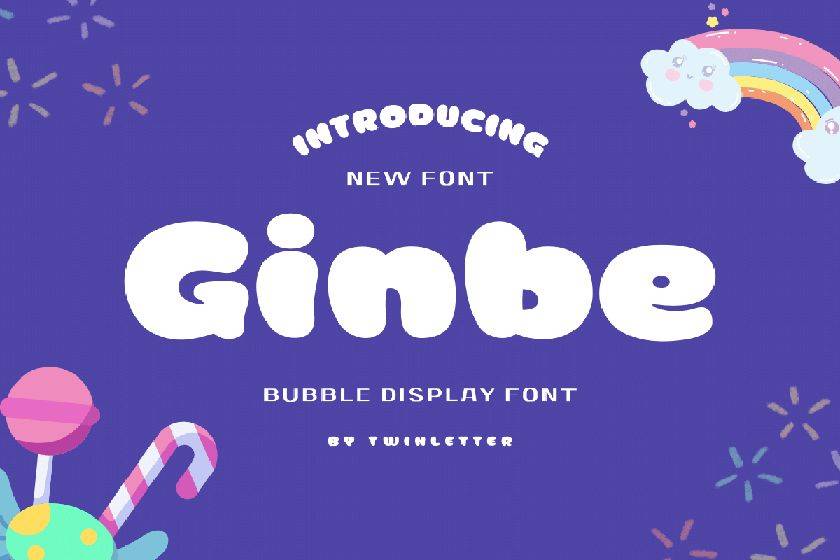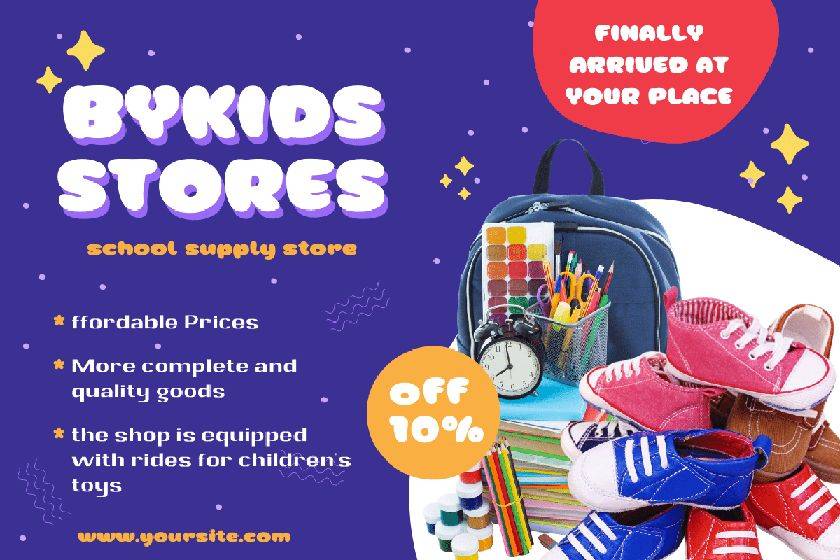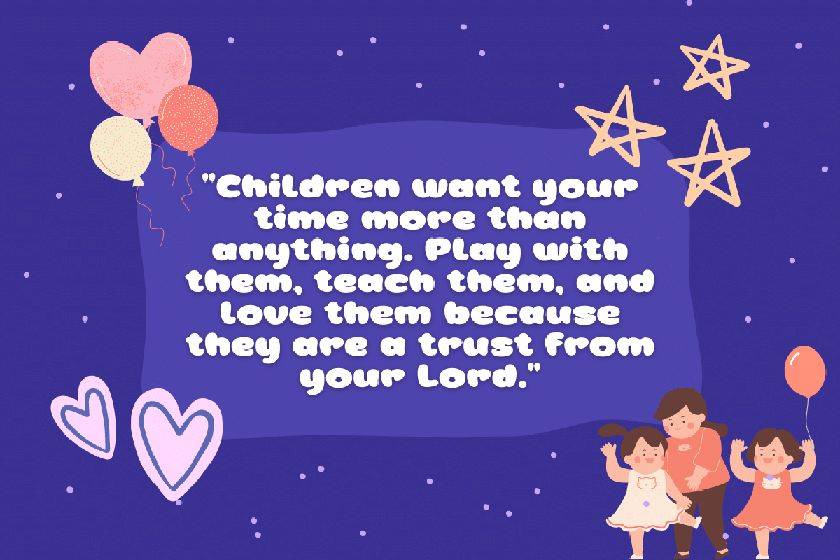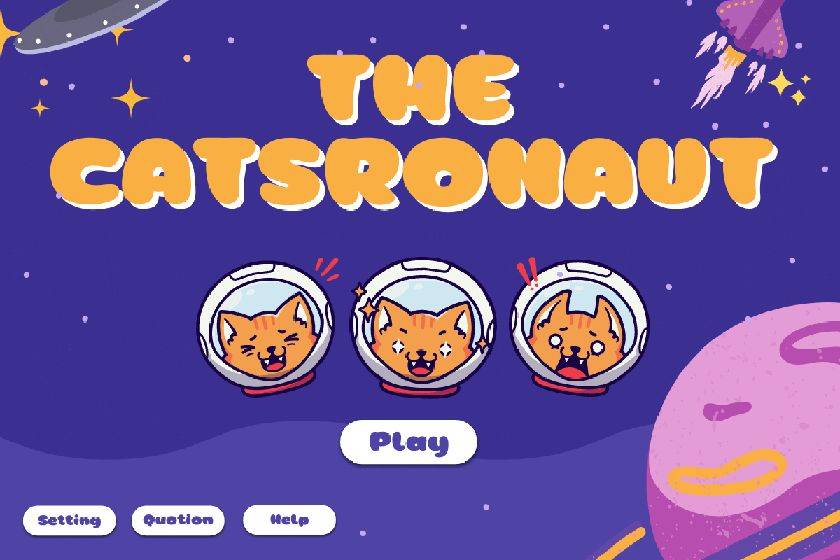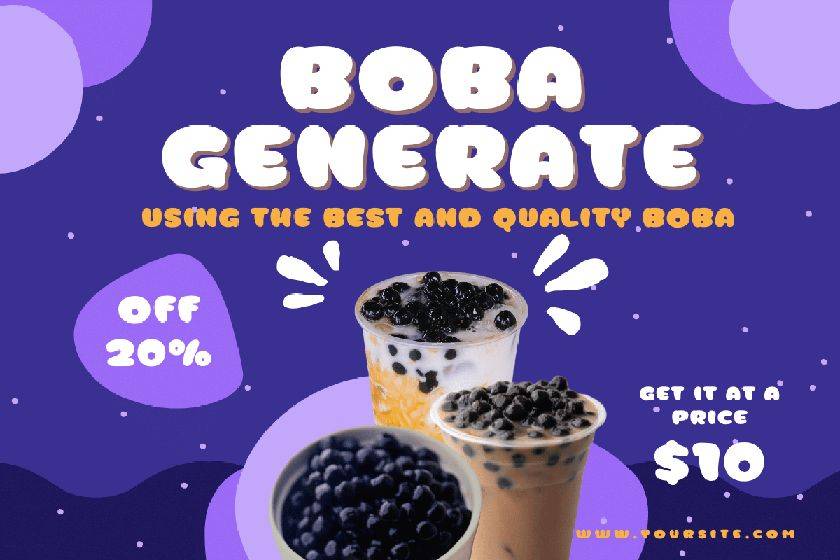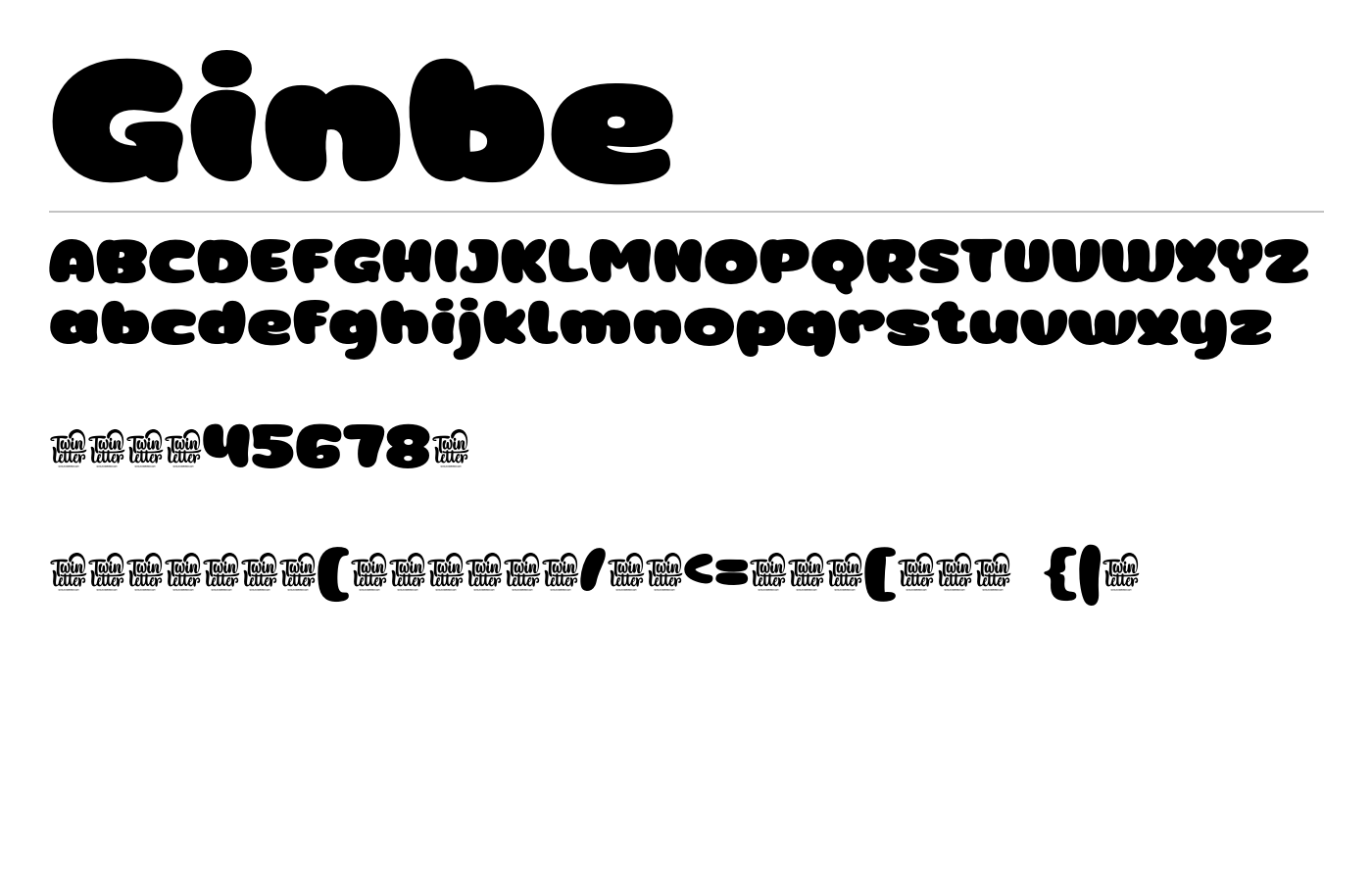
Ginbe is a bold, rounded sans serif font with playful and bubbly letterforms that create a friendly and approachable vibe. Its heavy weight, uniform stroke thickness, and soft edges make it ideal for eye-catching headlines, children's materials, and casual branding where a fun and lively personality is desired. This font works great in designs that want to convey warmth and charm while maintaining clear readability.
Ginbe Font
About Ginbe Font